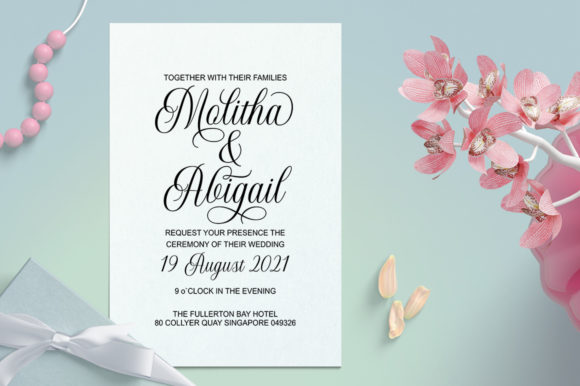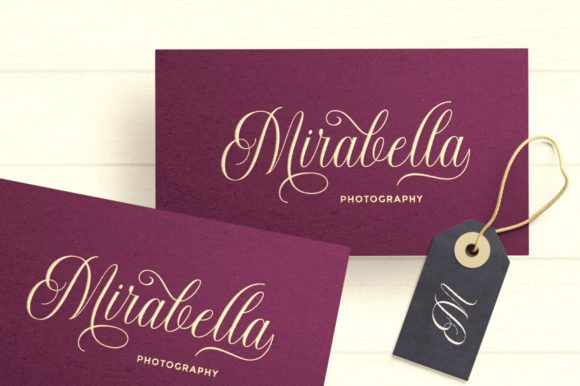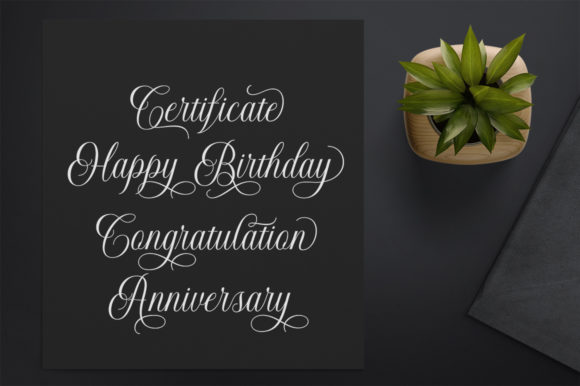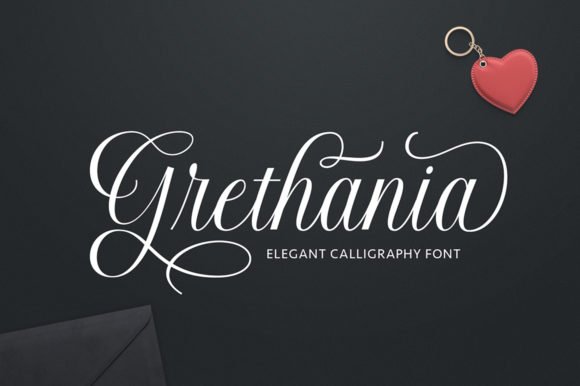
Introduction to Grethania Font
Grethania is an elegant and flowing handwritten font.
It is PUA encoded which means you can access all of the glyphs and swashes with ease It features a varying baseline, smooth lines, gorgeous glyphs and stunning alternates.
Key Features of Grethania Font
Grethania Font offers exceptional quality and versatility, making it a valuable addition to your design toolkit. Whether you’re creating for personal projects or commercial use, Grethania Font delivers professional results.